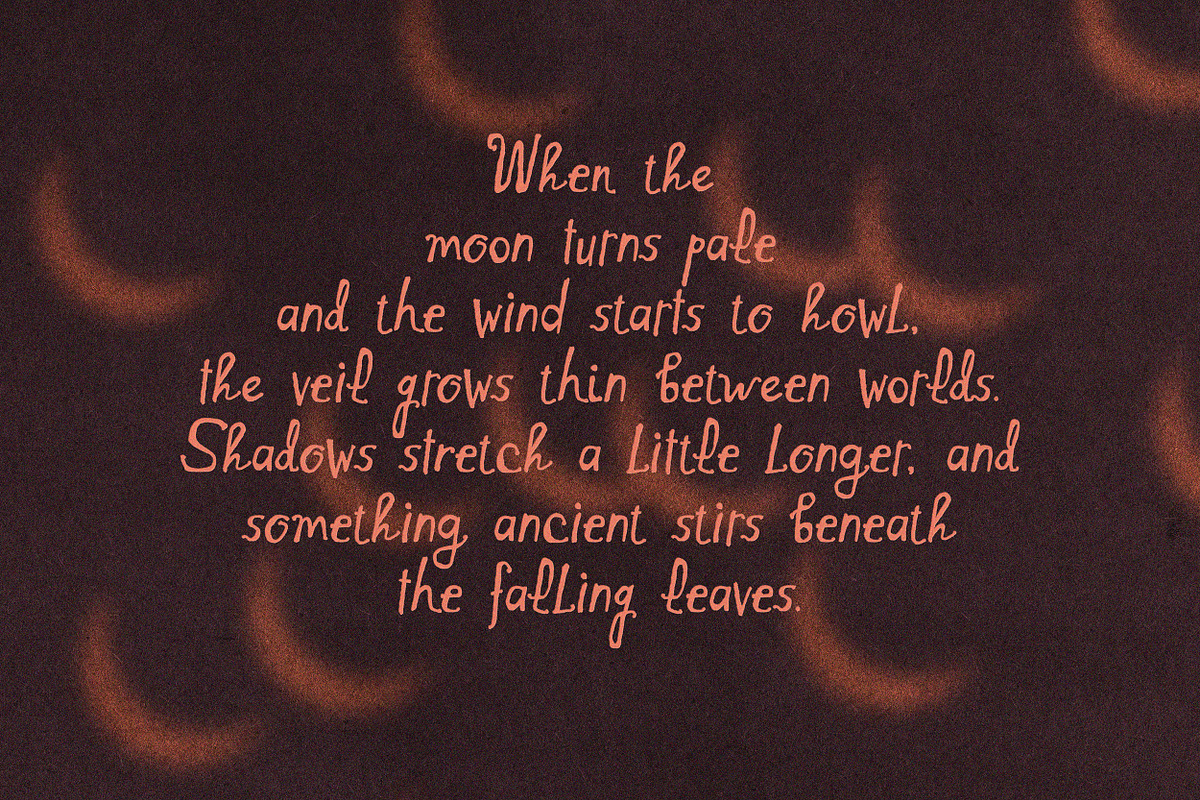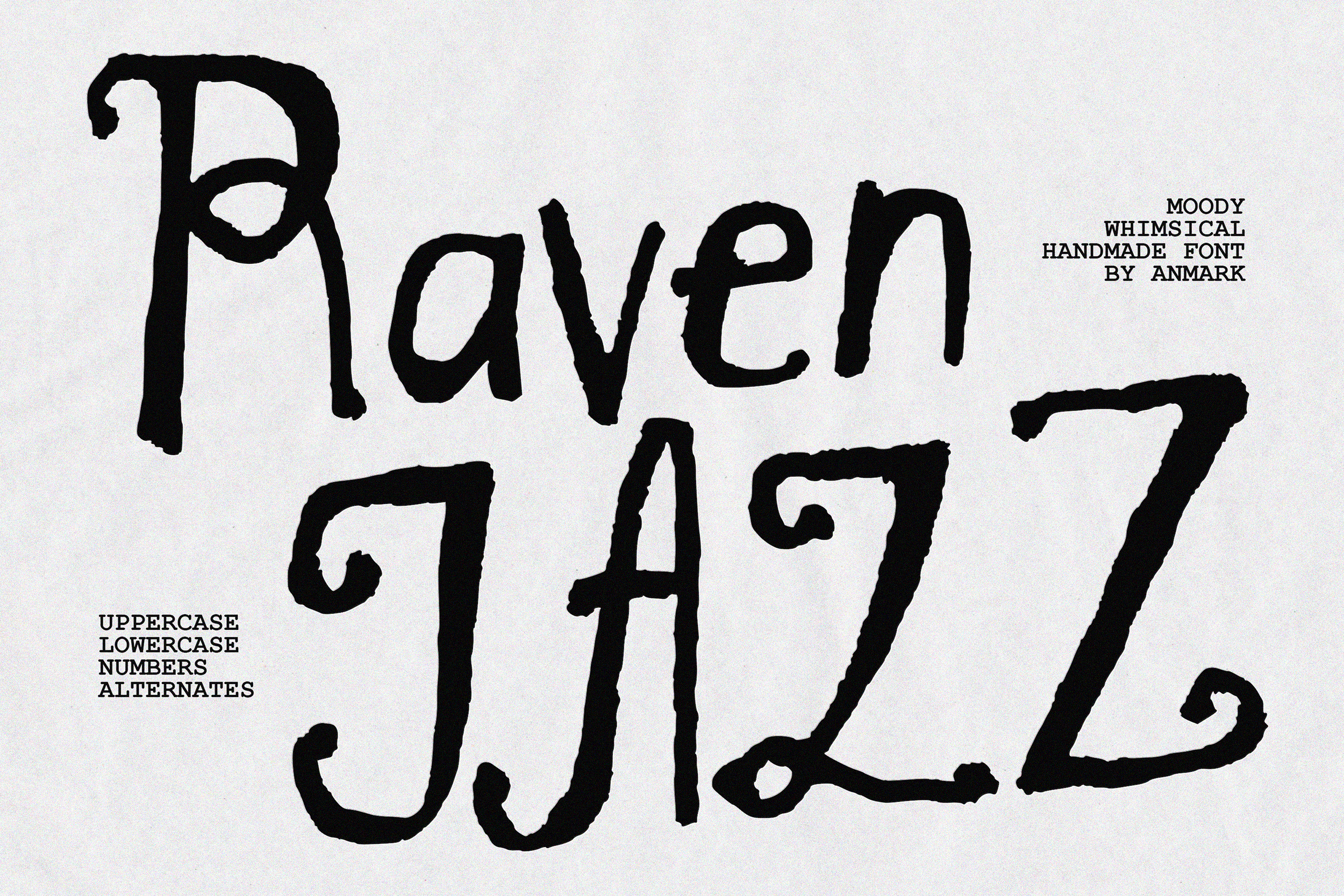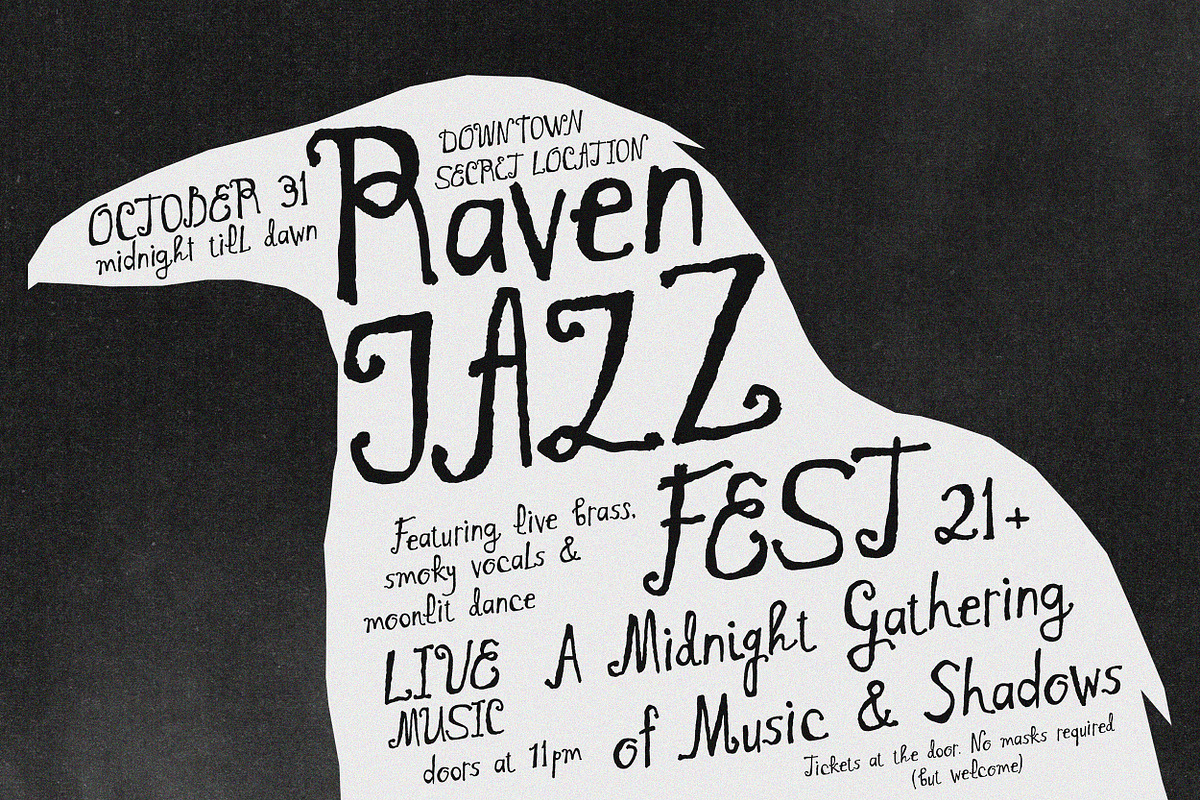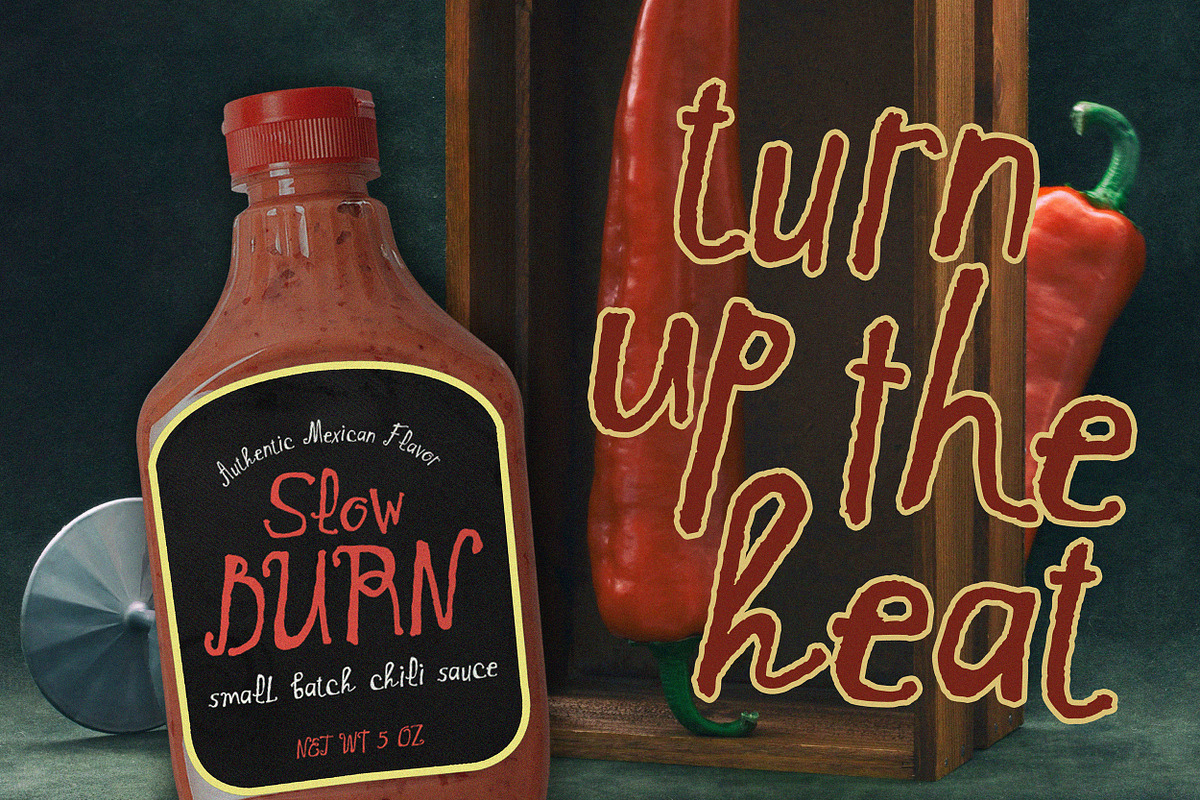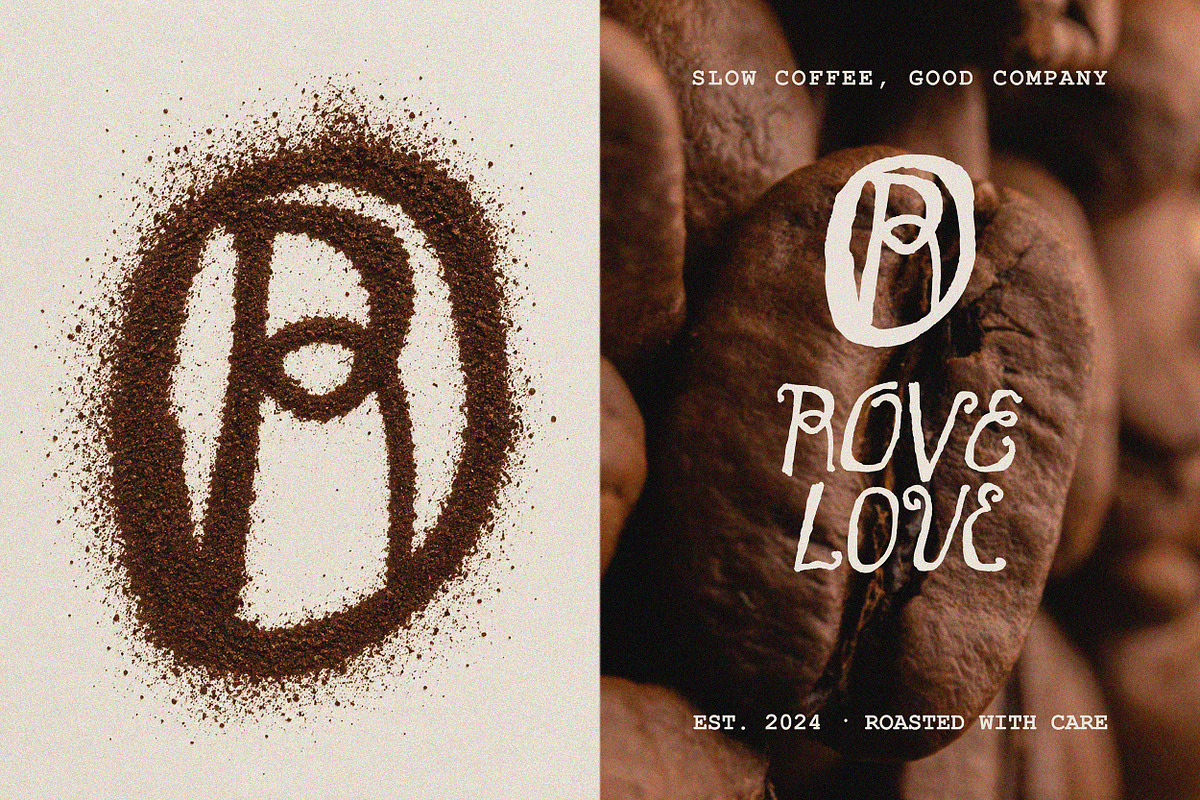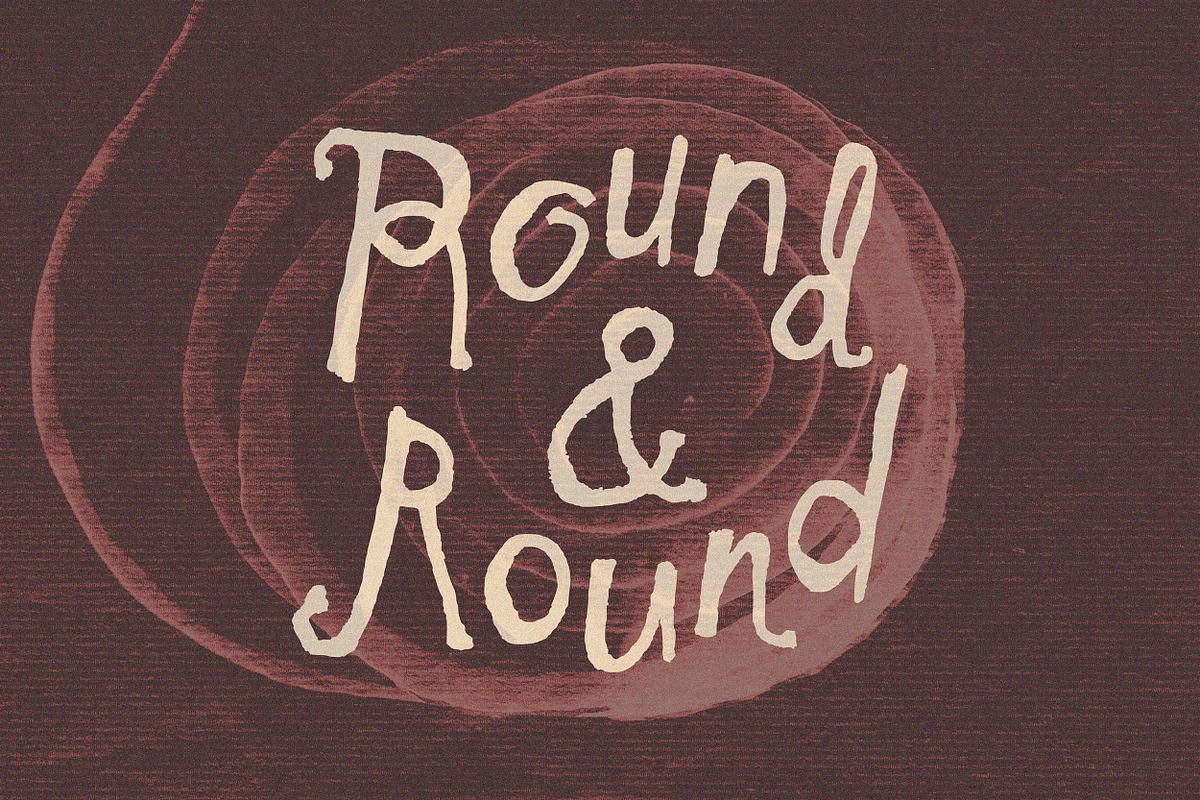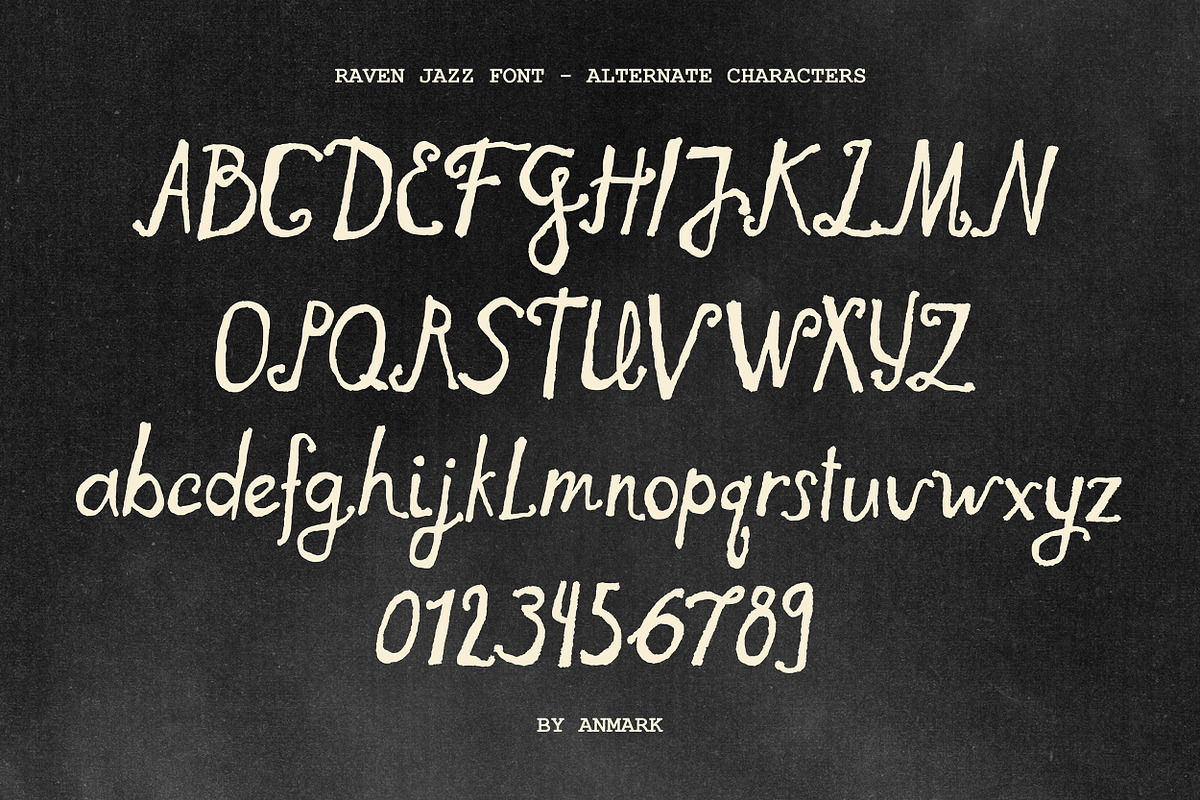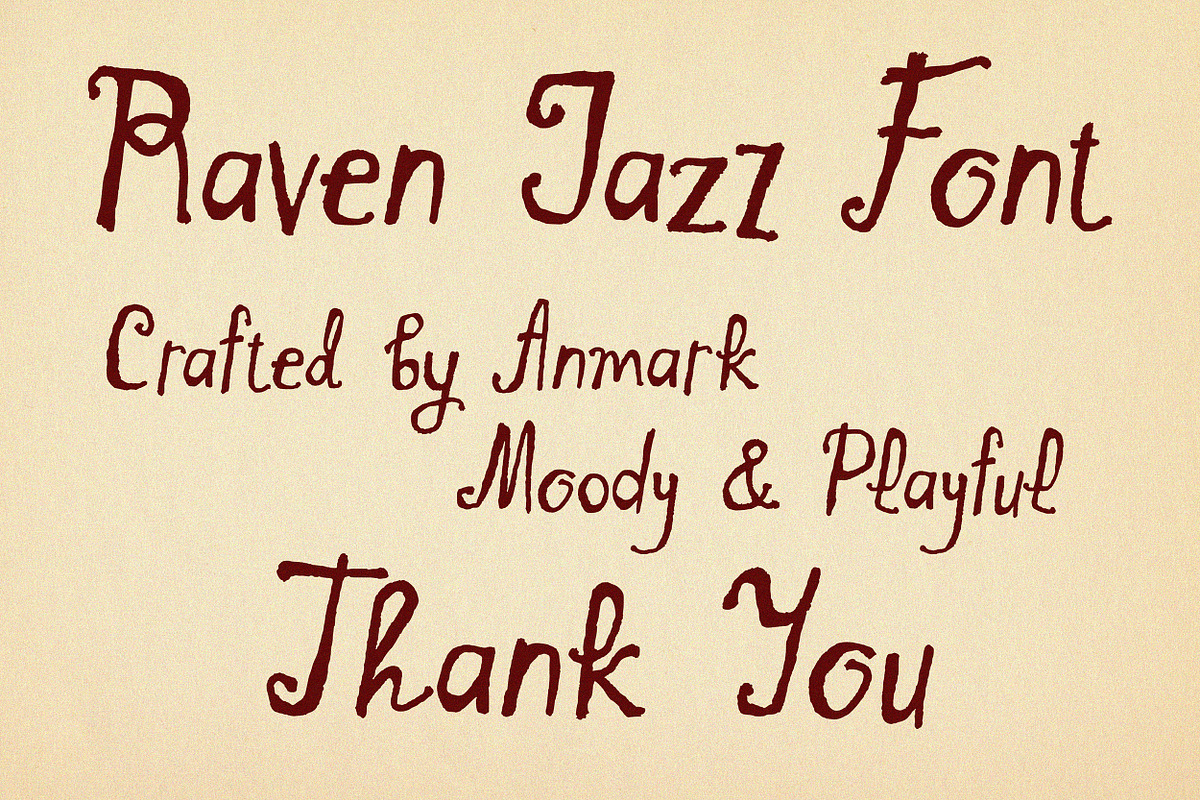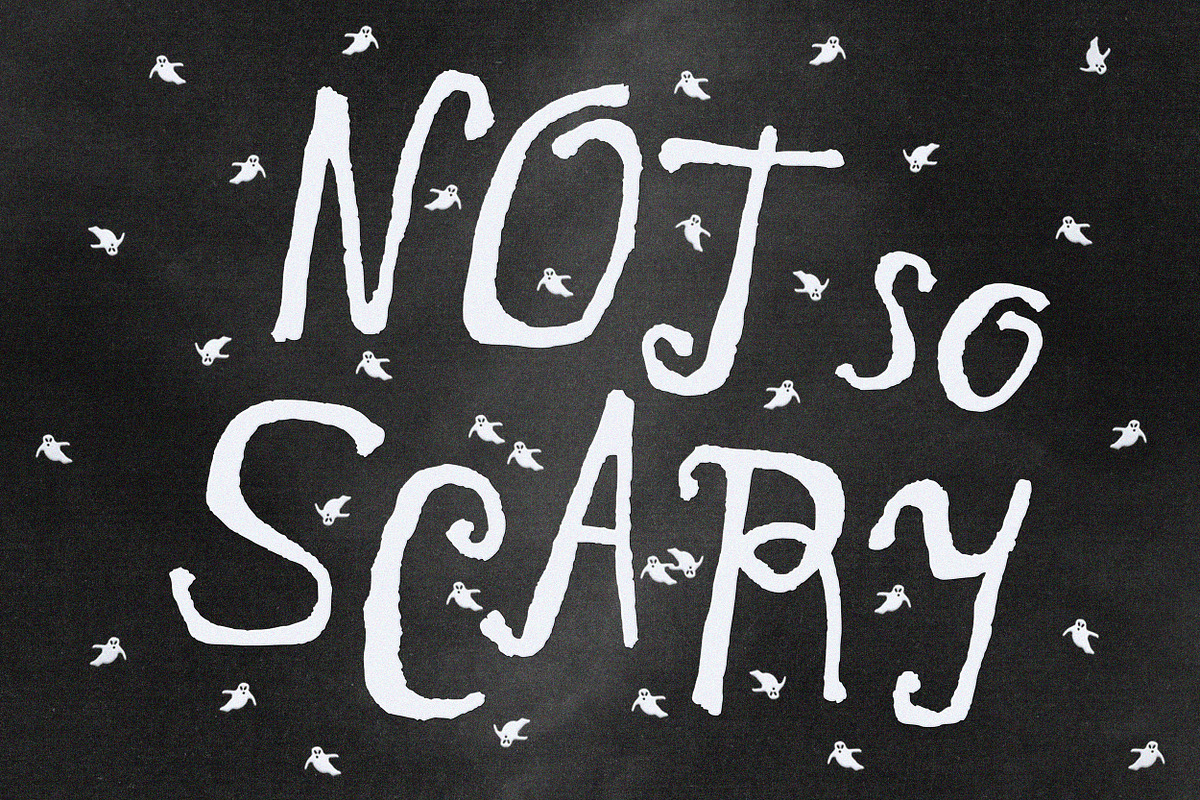
Raven Jazz | Vintage Display Font
Raven Jazz is a hand drawn decorative font with a distinctive vintage character, playful irregularity, and a slightly dark, expressive mood. Inspired by old jazz posters, handwritten lettering, vintage signs, café graphics, and atmospheric print design, it combines a rough handmade feel with elegant and unexpected letterforms.
The font has a strong personality without becoming difficult to read. Its expressive uppercase letters, lively lowercase forms, and naturally imperfect shapes create an authentic hand lettered look that works especially well in bold headlines, short phrases, logos, and display typography.
Raven Jazz includes a complete set of alternate characters for all uppercase letters, all lowercase letters, and numbers, giving you plenty of options to change the rhythm and appearance of your typography. Mix the standard and alternate characters to create more varied, organic, and individually styled lettering.
Its mood moves between vintage, moody, playful, quirky, festive, and slightly mysterious, making it especially versatile for both retro and darker creative projects.
Raven Jazz works beautifully as a Halloween font, bringing a hand drawn and atmospheric character to Halloween posters, invitations, labels, apparel, packaging, party graphics, and seasonal designs. It is also a strong branding font for cafés, restaurants, bars, music projects, creative studios, vintage shops, and independent brands.
Use it for logos, branding, posters, album artwork, editorial design, packaging, food labels, café menus, apparel, invitations, greeting cards, quotes, social media graphics, stickers, signs, and festive projects.
Raven Jazz is a decorative display font made for designs that need personality, character, and a memorable handwritten feel.